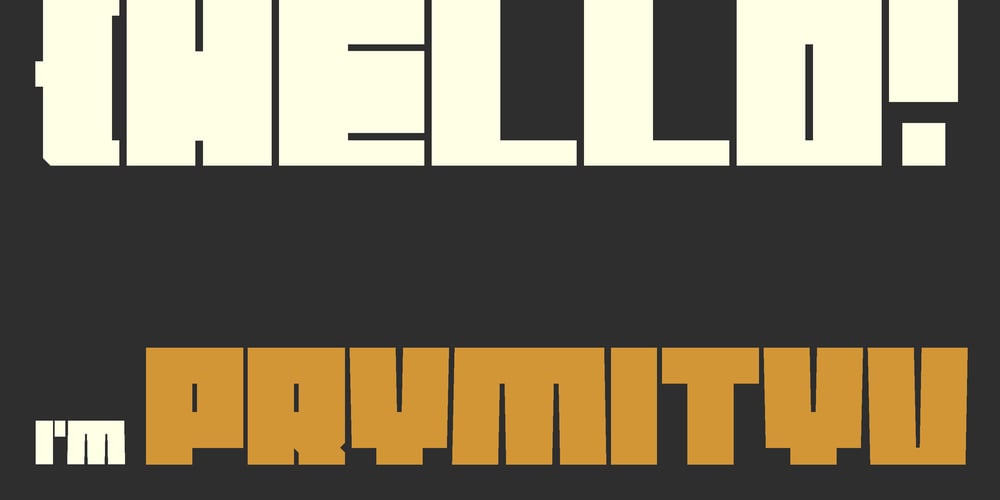
Prymityv Font Family was designed by Malgorzata Bartosik and published by Malgorzata Bartosik. Prymityv contains 1 styles and family package options. Prymityv is inspired by brutalist architecture from the Eastern Bloc. It’s heavy and massive, perfect for display purposes. Prymityv contains Latin and Cyrillic alphabet, Latin with Western, Central and South Eastern European diacritics, Cyrillic with Russian, Bulgarian, Serbian and Macedonian and Ukrainian diacritics.